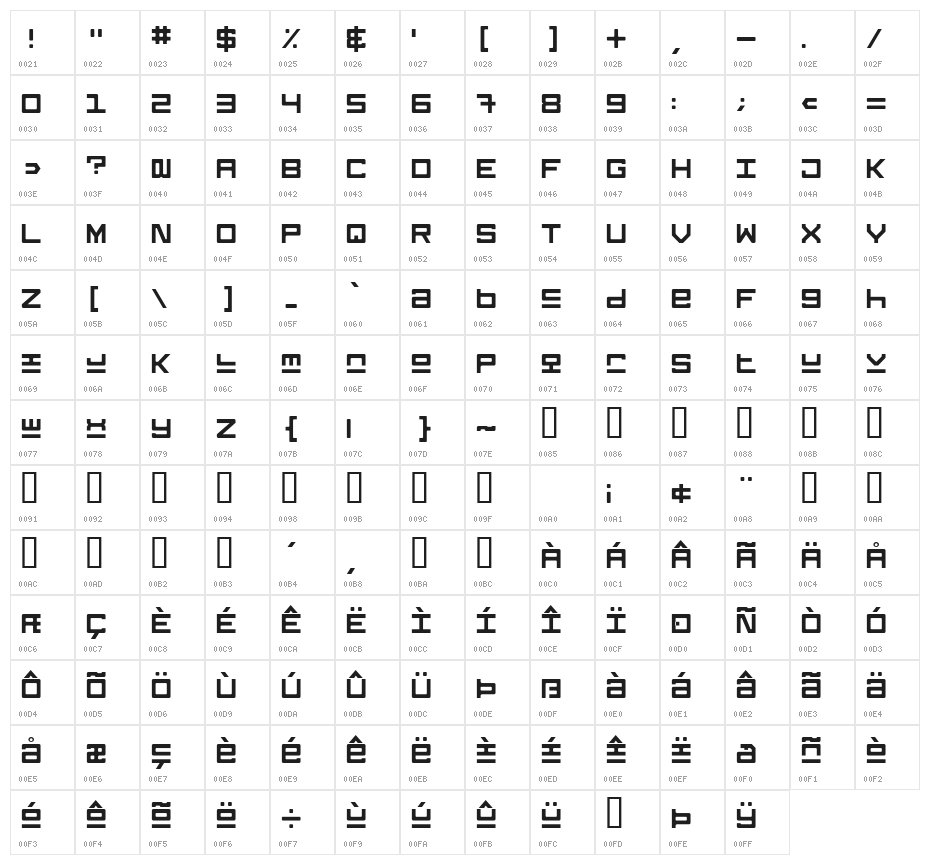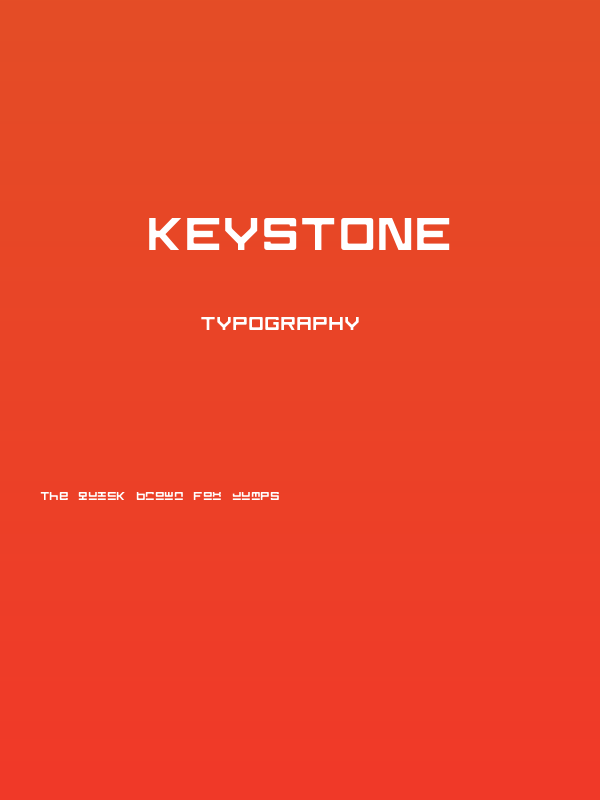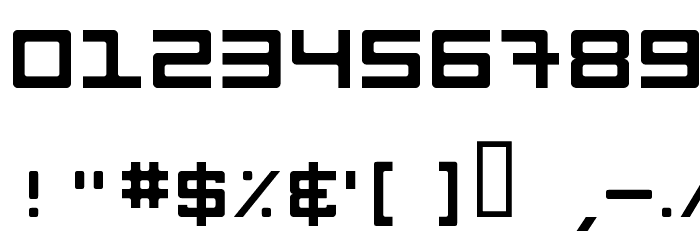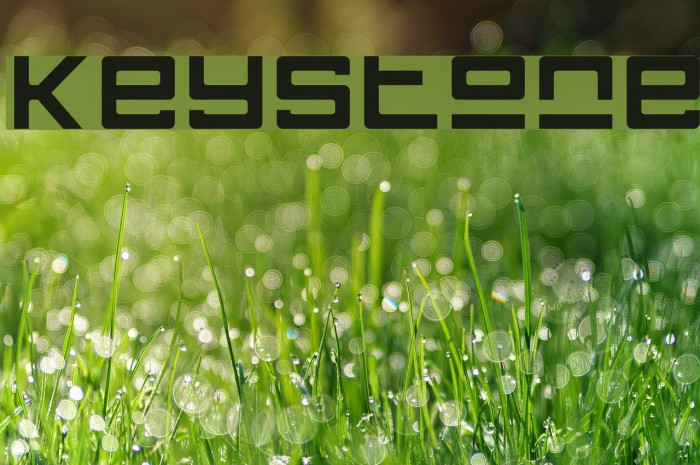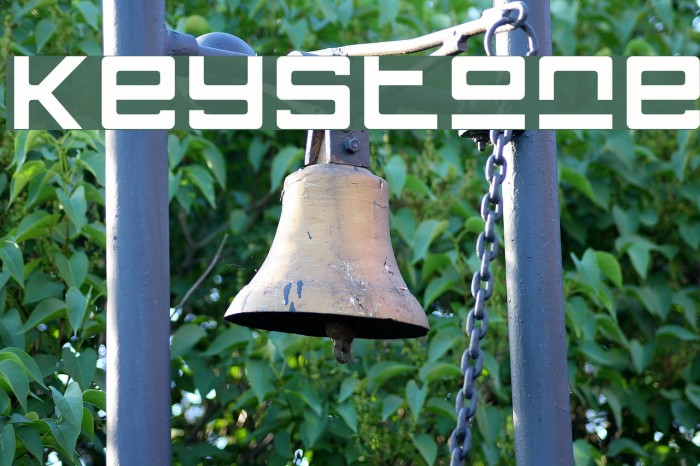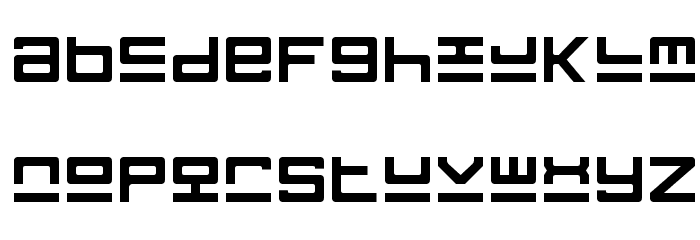
Keystone Font
Keystone Description
This font features a bold, geometric design with a modern and futuristic aesthetic. The characters are constructed with consistent stroke widths, giving them a uniform and structured appearance. The uppercase and lowercase letters share similar design elements, emphasizing a cohesive look. The numerals and special characters maintain the same geometric style, ensuring visual harmony across all elements. The font's angular shapes and clean lines make it suitable for projects that require a contemporary and tech-savvy feel.